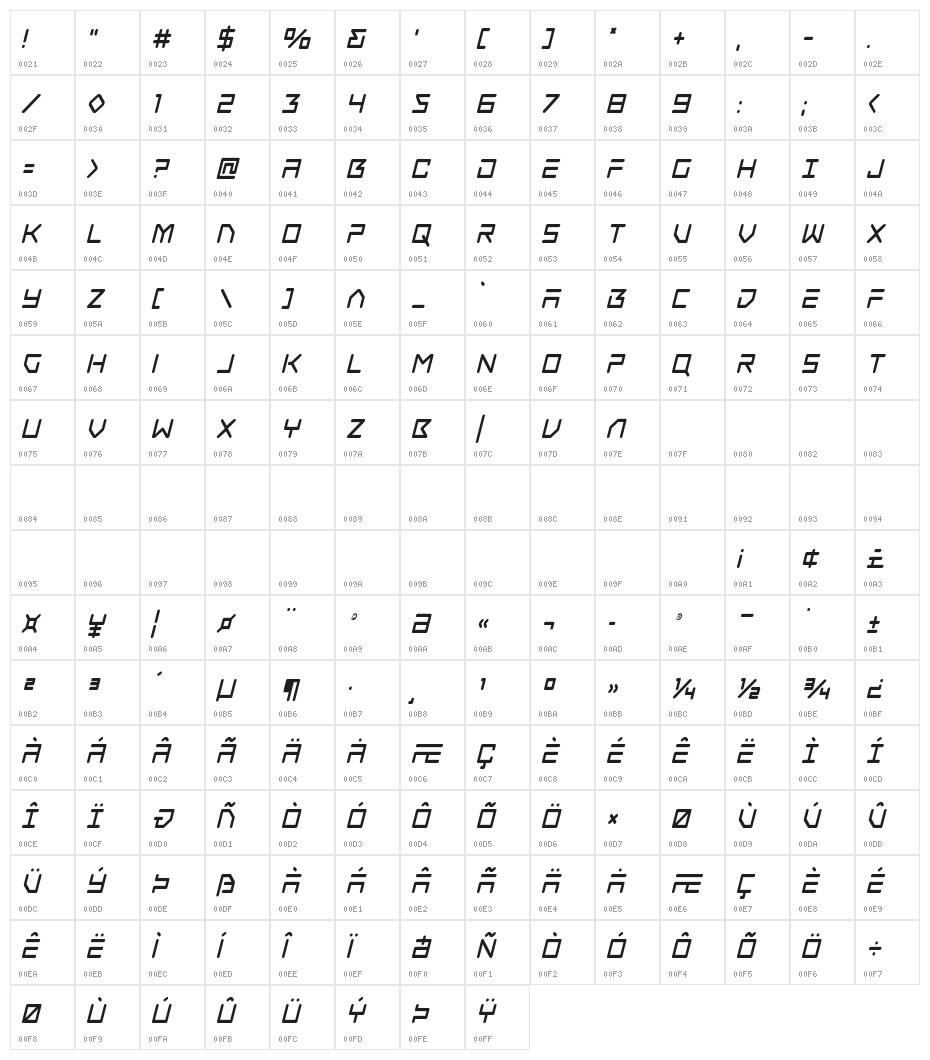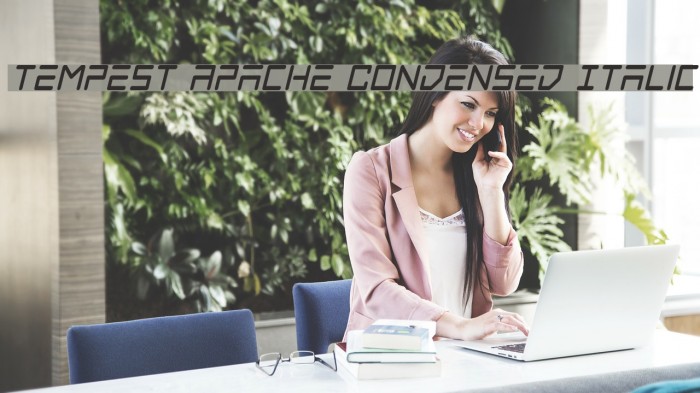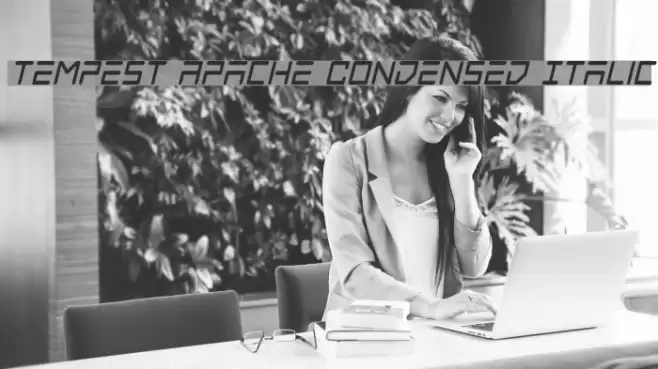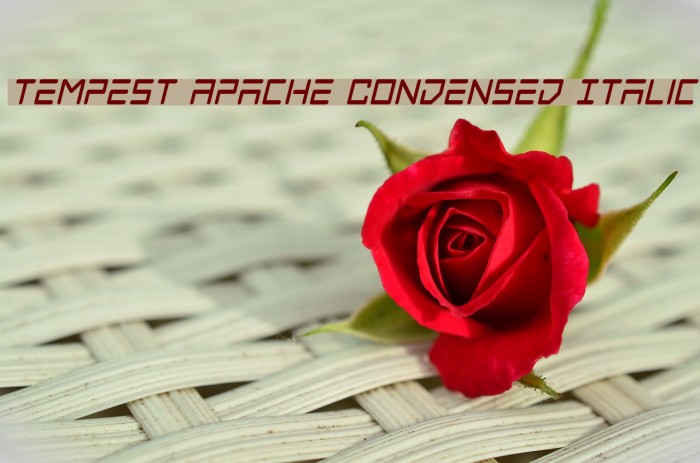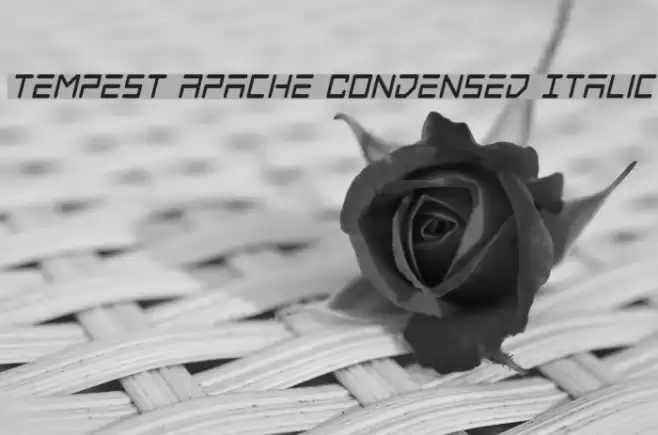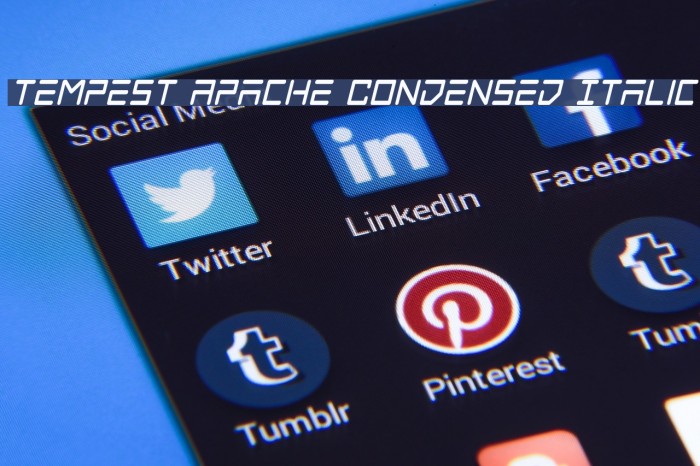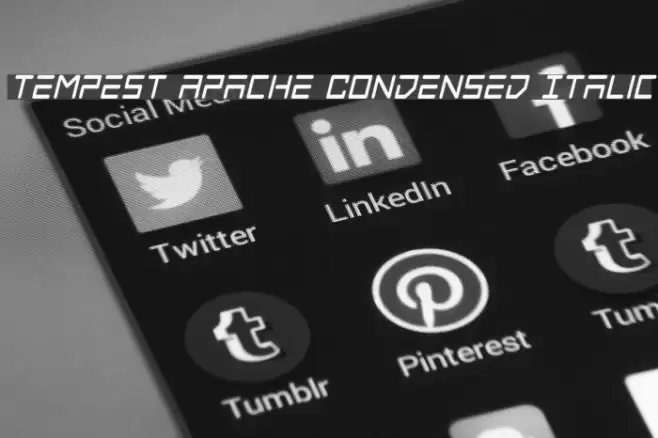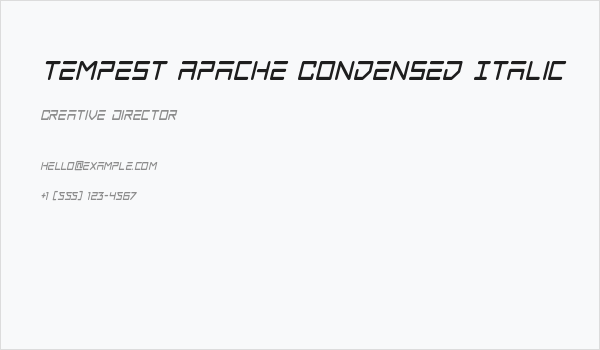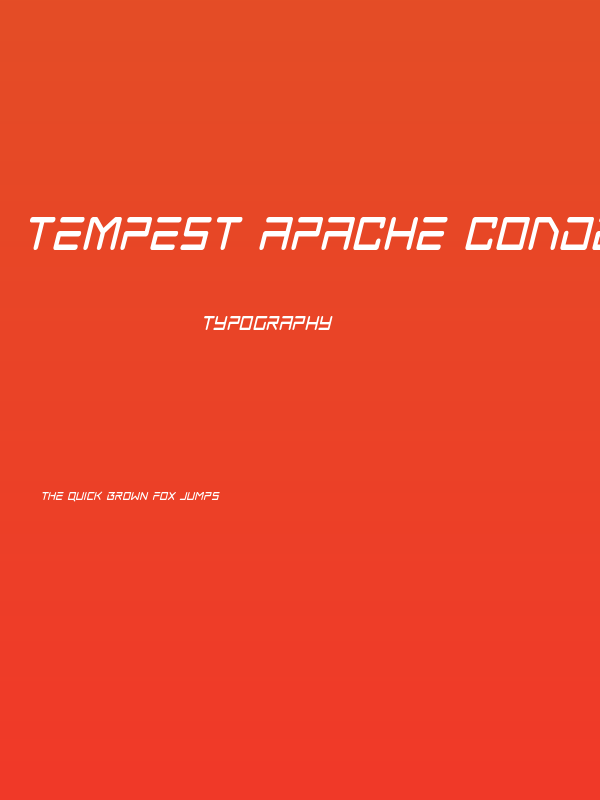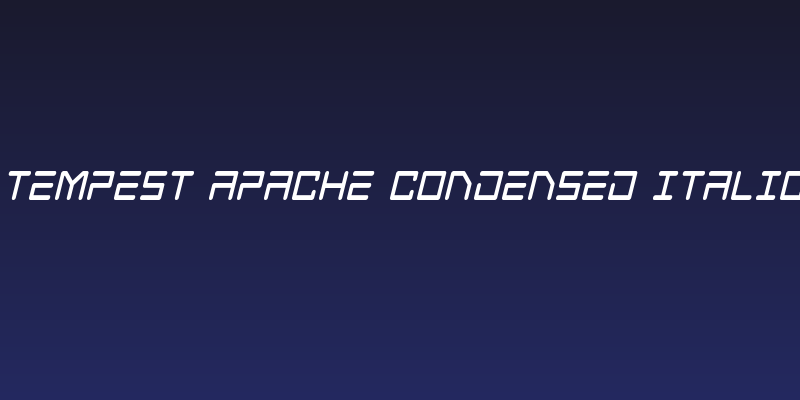
Tempest Apache Condensed Italic Font
Tempest Apache Condensed Italic Description
This font features a dynamic and angular design, characterized by its condensed and italicized form. The letters are constructed with sharp, geometric lines that convey a sense of speed and modernity. The uppercase and lowercase letters maintain a consistent style, with a slight slant that enhances the italic effect. Numbers and special characters are designed to match the angular theme, providing a cohesive look across all glyphs. The font's condensed nature allows for efficient use of space, making it suitable for various design applications where space is limited but impact is desired.